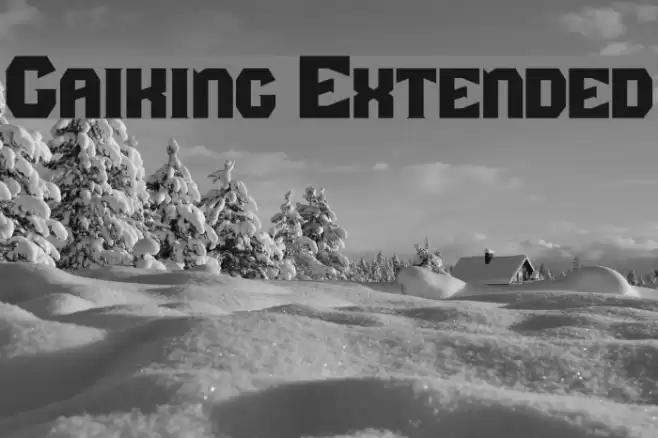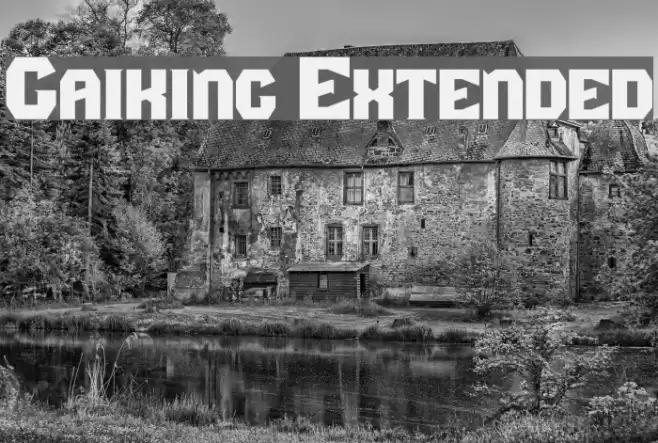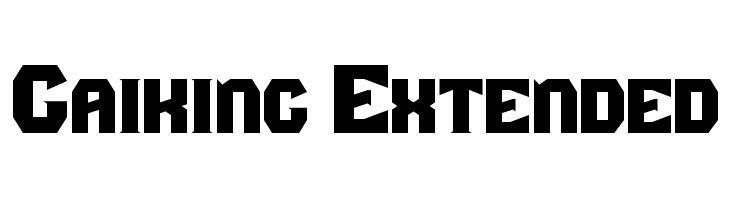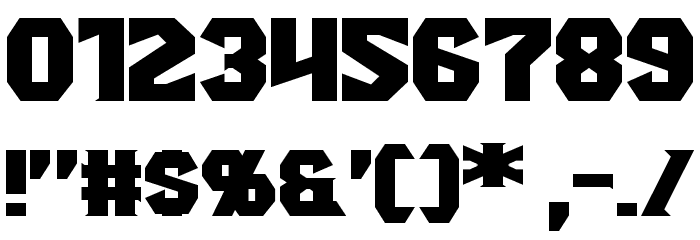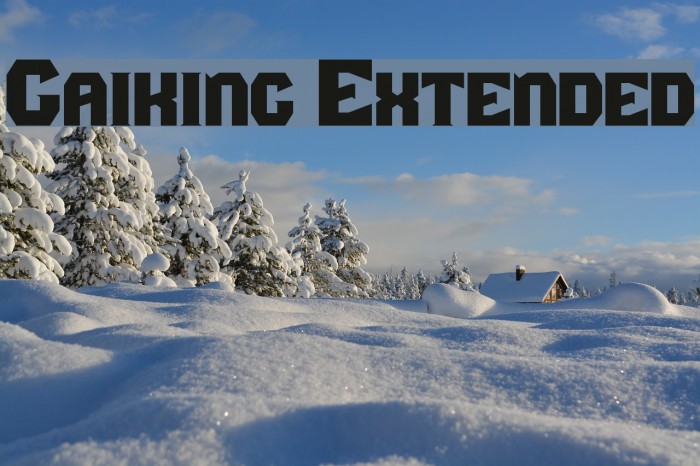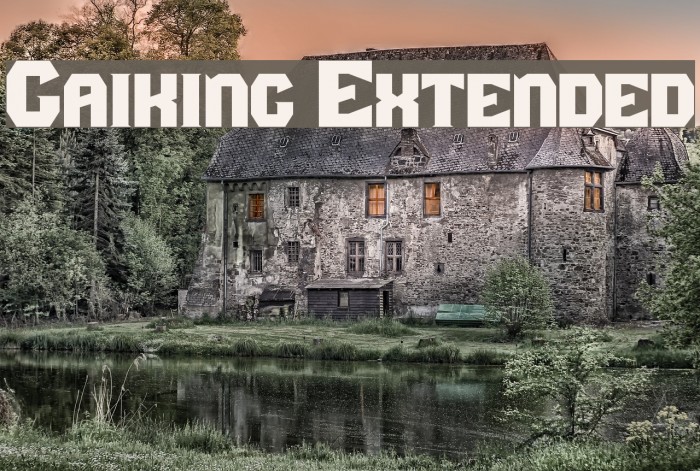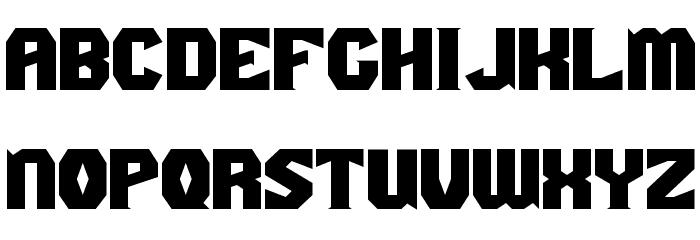
Gaiking Extended Font
Gaiking Extended Description
This font exhibits a bold, geometric style with sharp angles and a blocky appearance. The characters are uniformly wide, creating a sense of strength and stability. The uppercase and lowercase letters maintain a consistent design, emphasizing the angular cuts and straight lines. Numbers and special characters follow the same robust aesthetic, making them stand out prominently. The overall design is reminiscent of futuristic or industrial themes, suitable for projects that require a strong visual impact.
A bold, geometric font with sharp angles and a blocky style from Uncategorized fonts.
- Proposed Projects: Ideal for video game titles, sci-fi movie posters, industrial-themed branding, and bold headlines.
- Overall Style: Futuristic, Industrial